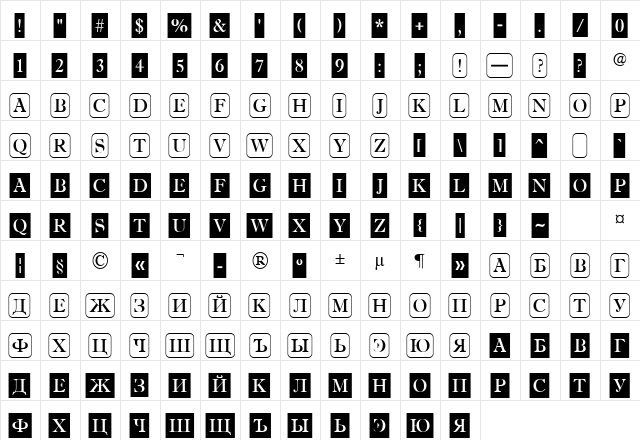
a_AntiqueTrdCmDc2Cb Regular Font Preview
a_AntiqueTrdCmDc2Cb Regular
a_AntiqueTrdCmDc2Cb Regular Font Details
Design Context for a_AntiqueTrdCmDc2Cb Typeface
a_AntiqueTrdCmDc2Cb has the warm character of retro typography — evoking diners, record sleeves, and the golden age of print advertising.
Font Pairing: Combine a_AntiqueTrdCmDc2Cb with a simple slab or neutral sans — period-accurate companions reinforce the vintage feel without competing for attention.
Pro Tip: Lean into a_AntiqueTrdCmDc2Cb's period character by pairing it with aged paper textures, muted colour palettes, and vintage illustration styles.